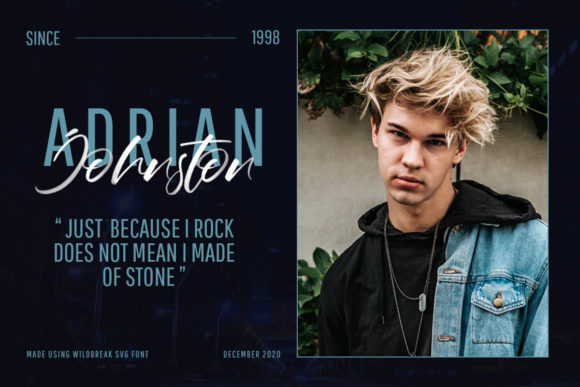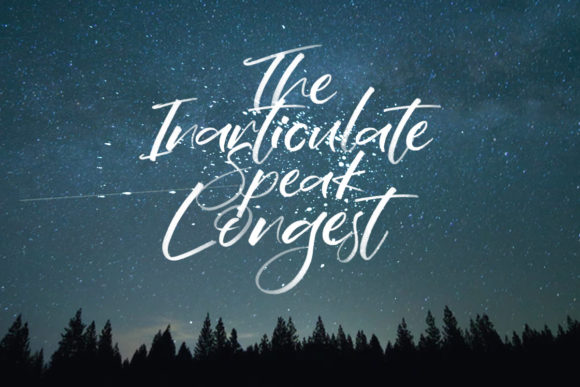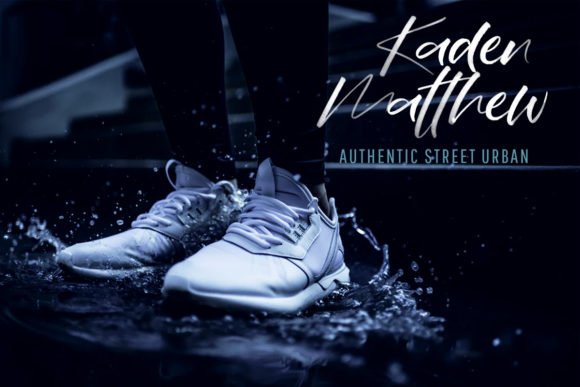
About Wildbreak Font
Wildbreak is a casual and relaxed handwritten font. It can be used for various purposes such as logos, wedding invitations, headings, t-shirts, letterhead, signage, labels, news, posters, badges and so much more.